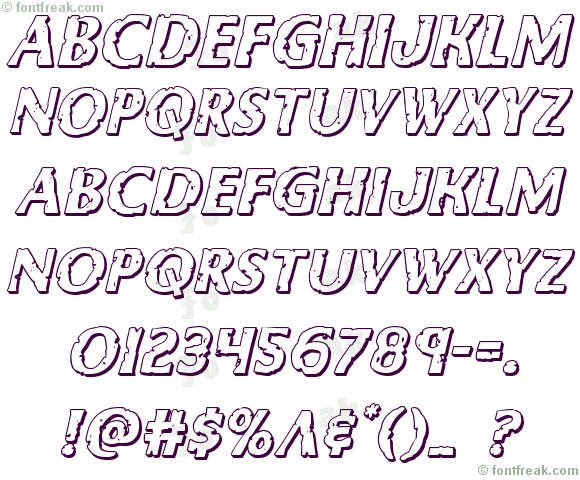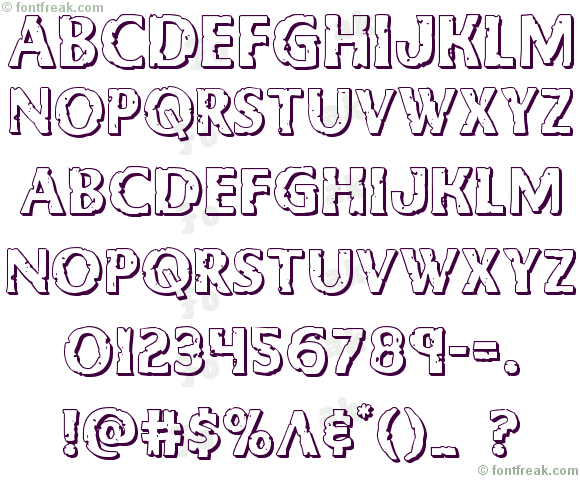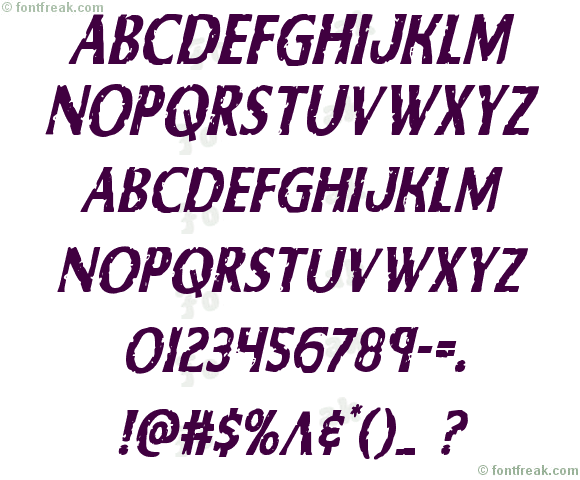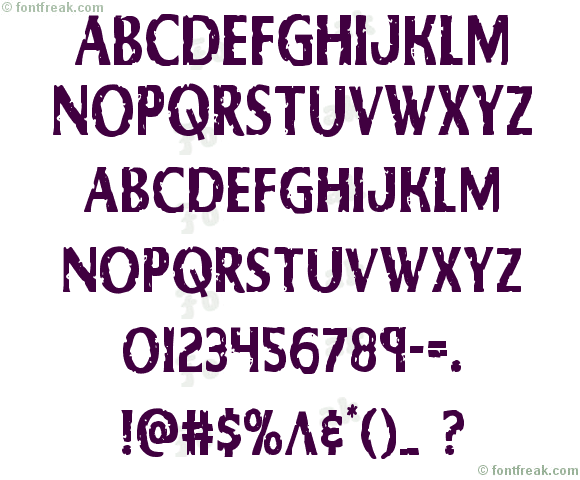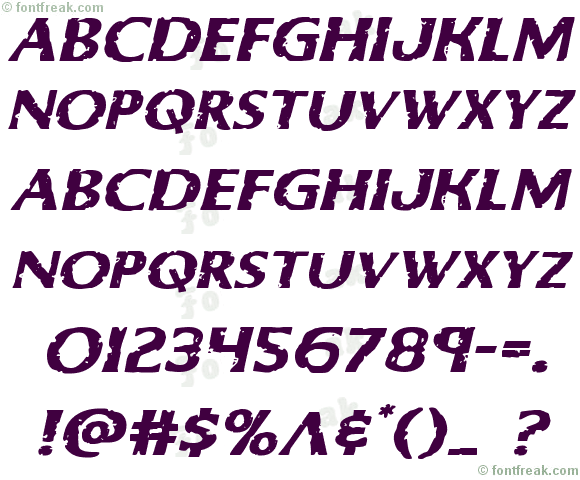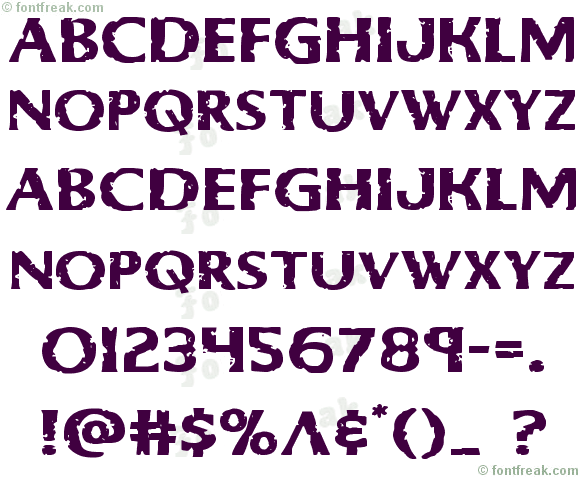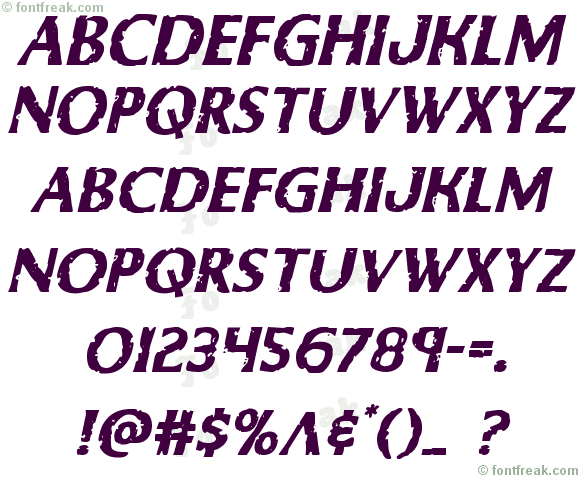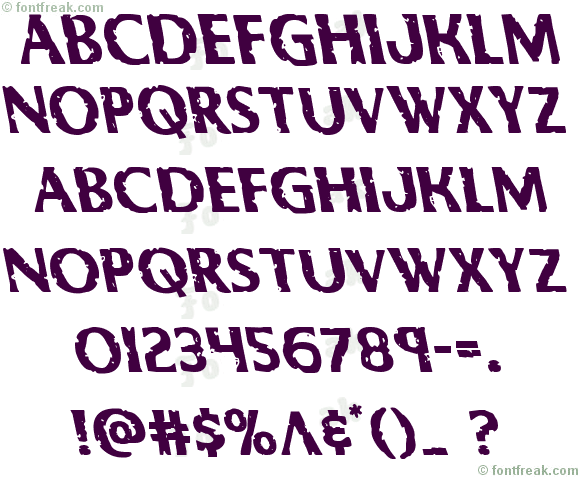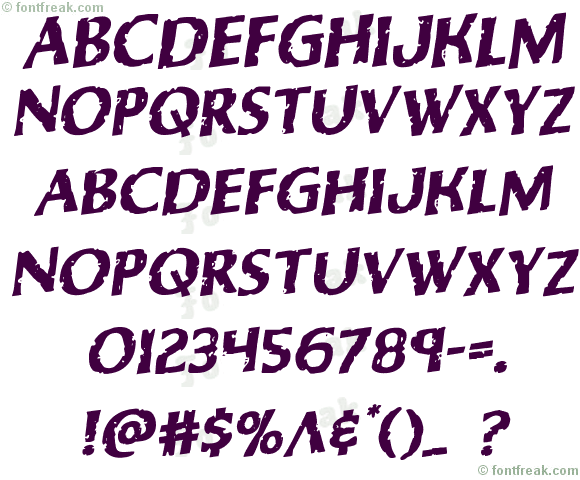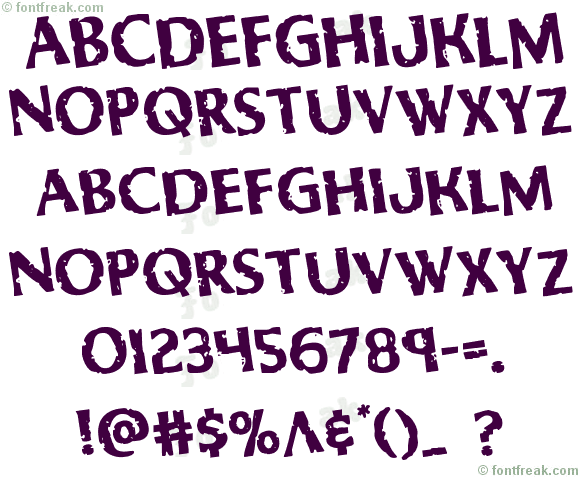
Body Swipers 3D
About Body Swipers 3D
Body Swipers 3D, designed by Daniel Zadorozny, is a unique display font that captures attention with its playful and dynamic style. This font features a condensed and staggered design that gives it a three-dimensional effect, enhancing its visual appeal. The strokes exhibit a medium weight with minimal contrast, allowing for easy readability while adding a touch of whimsy. The italicized and leftalic variations provide versatility, making it suitable for various creative applications.
The Body Swipers 3D font is particularly well-suited for projects that require a fun and engaging aesthetic. It shines in contexts such as movie posters, where it can evoke excitement and capture the viewer's interest. Additionally, it works wonderfully for children's book covers, drawing in young audiences with its lively character. Restaurant menus can benefit from this font, offering a sense of playfulness that complements a casual dining atmosphere. Graphic designers will find it an excellent choice for promotional materials, as its distinctive look can help brands stand out in a crowded marketplace.
What truly sets the Body Swipers 3D font apart is its ability to convey a sense of movement and energy, making it a fantastic choice for any design needing a playful touch. With the Body Swipers 3D font free download, you can effortlessly elevate your projects and engage your audience in a visually striking way.